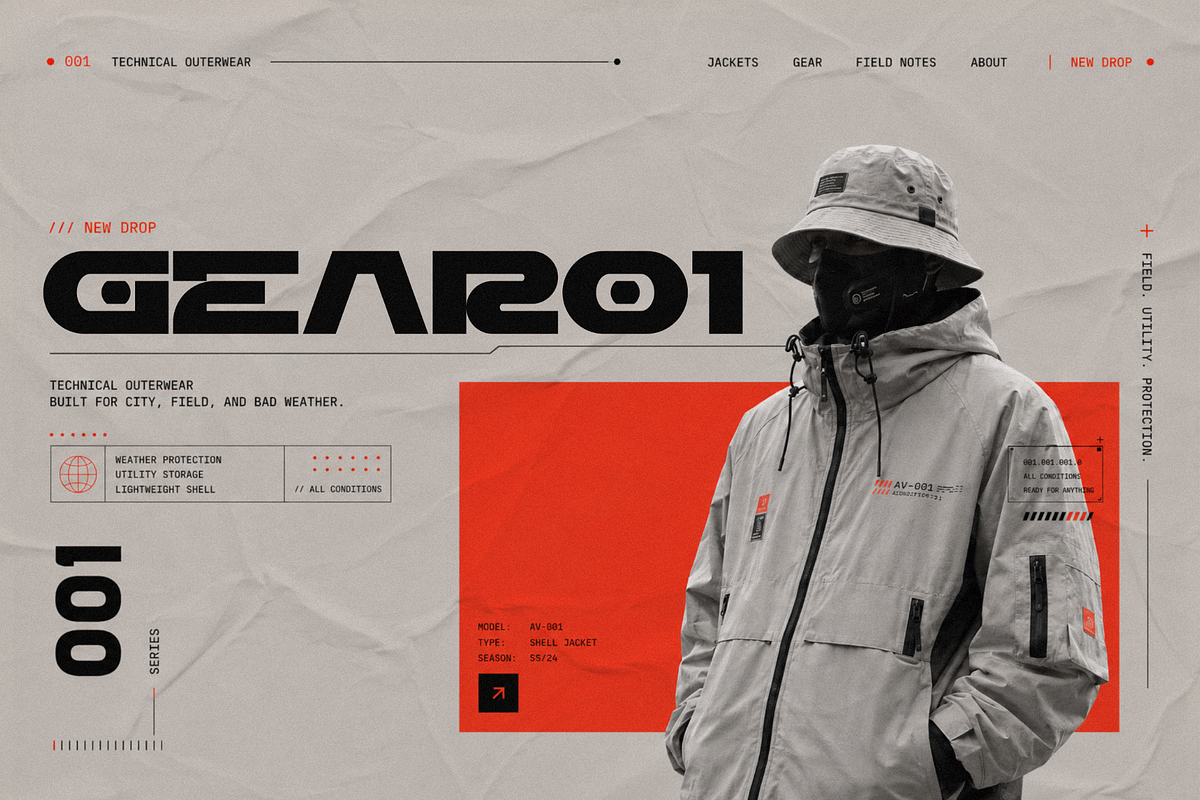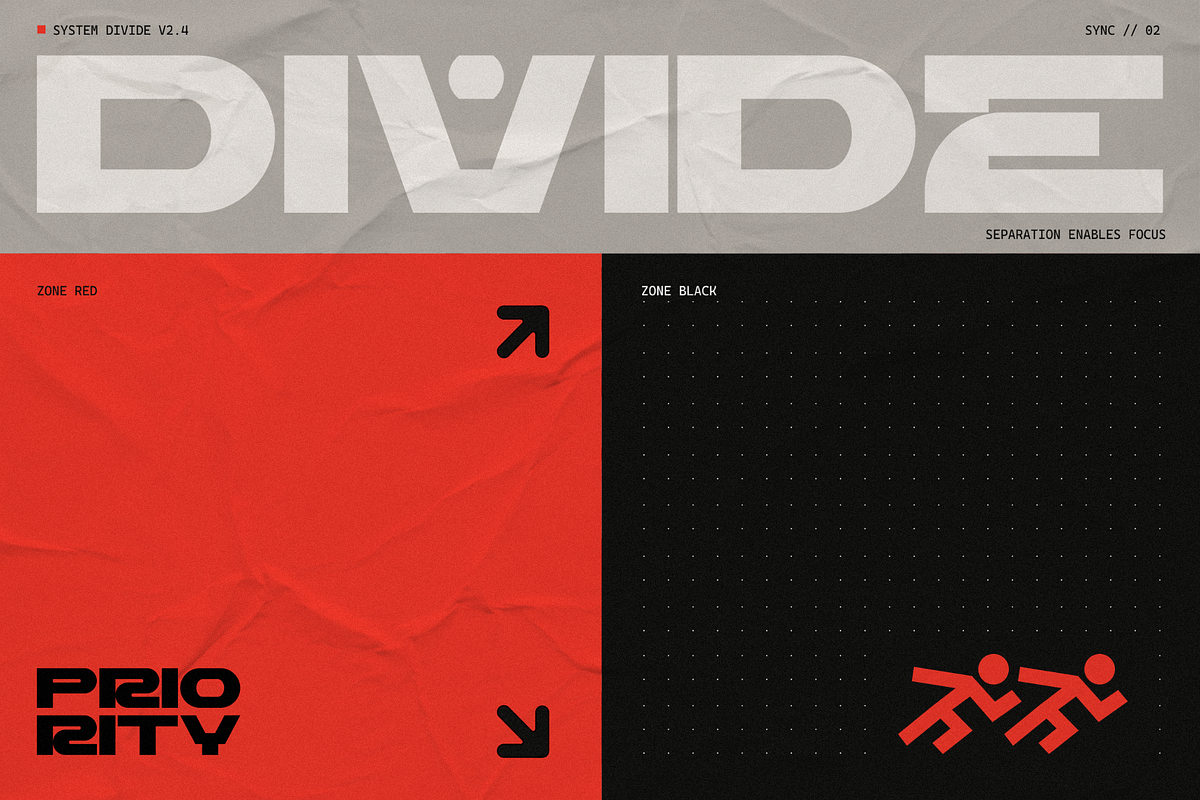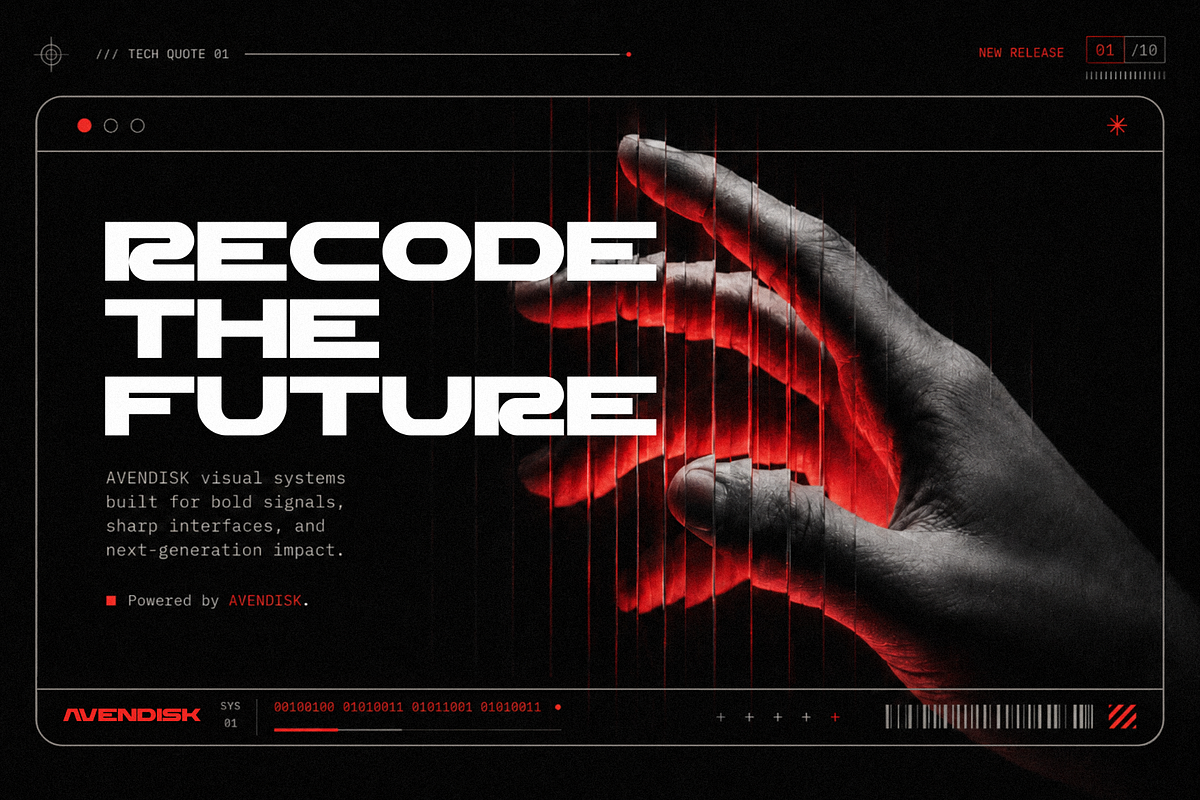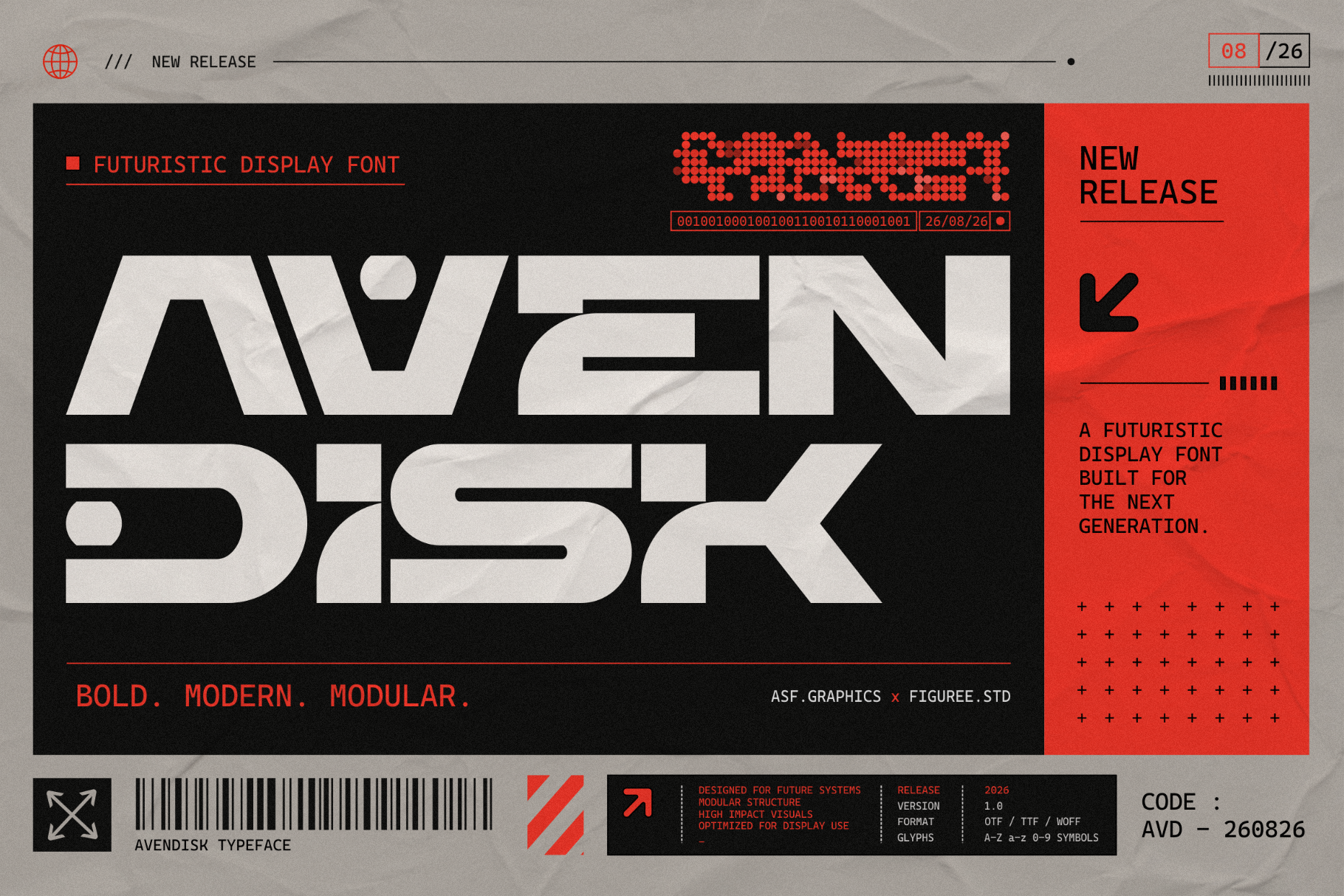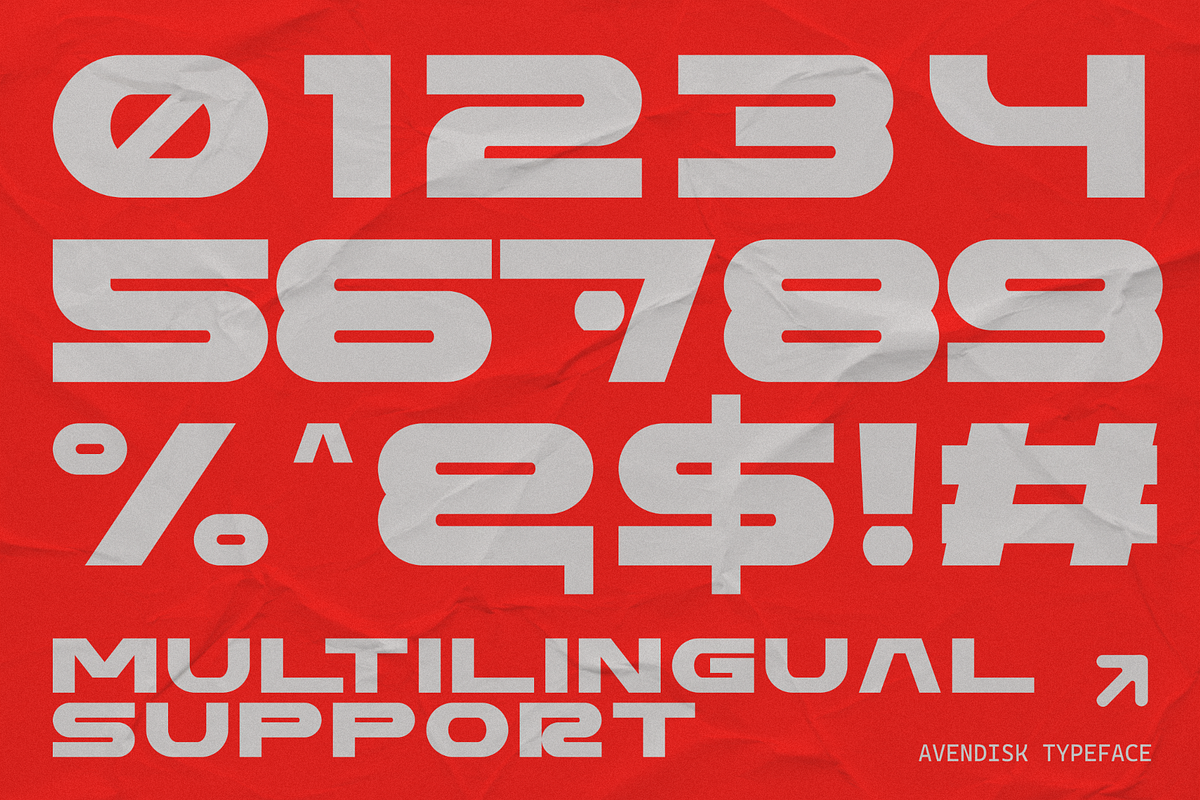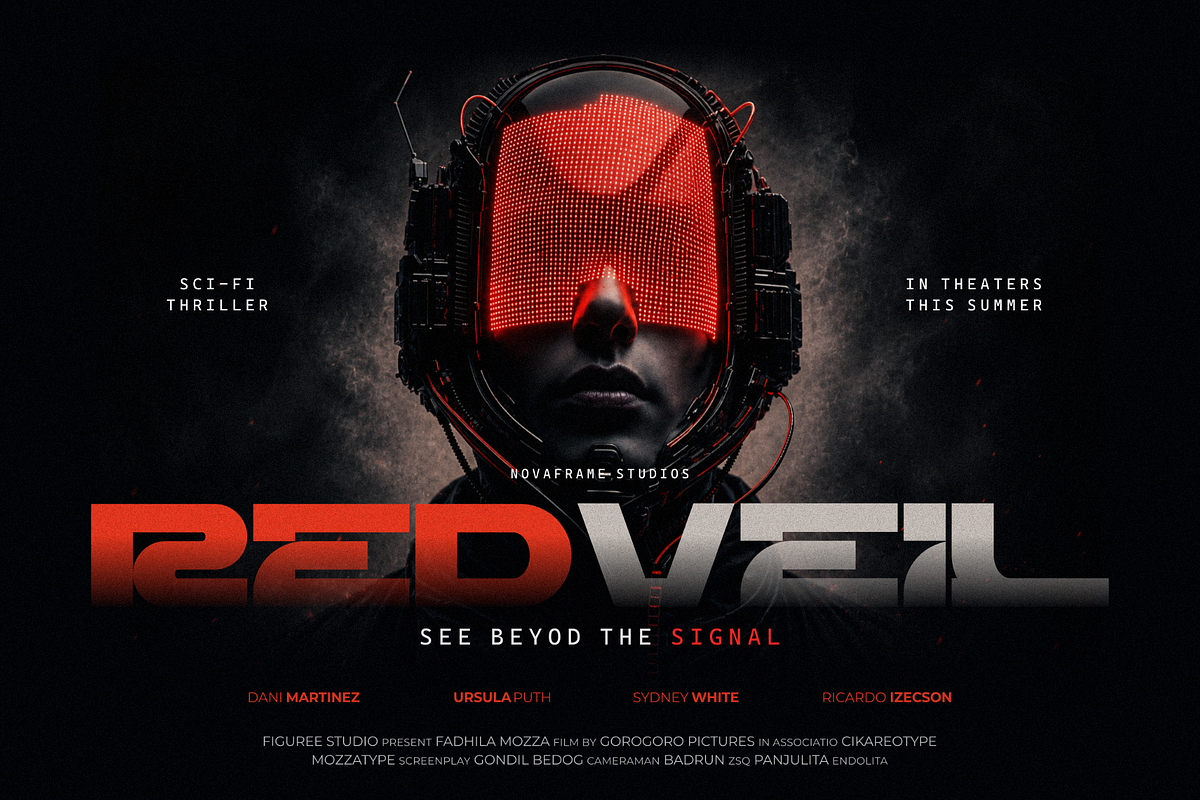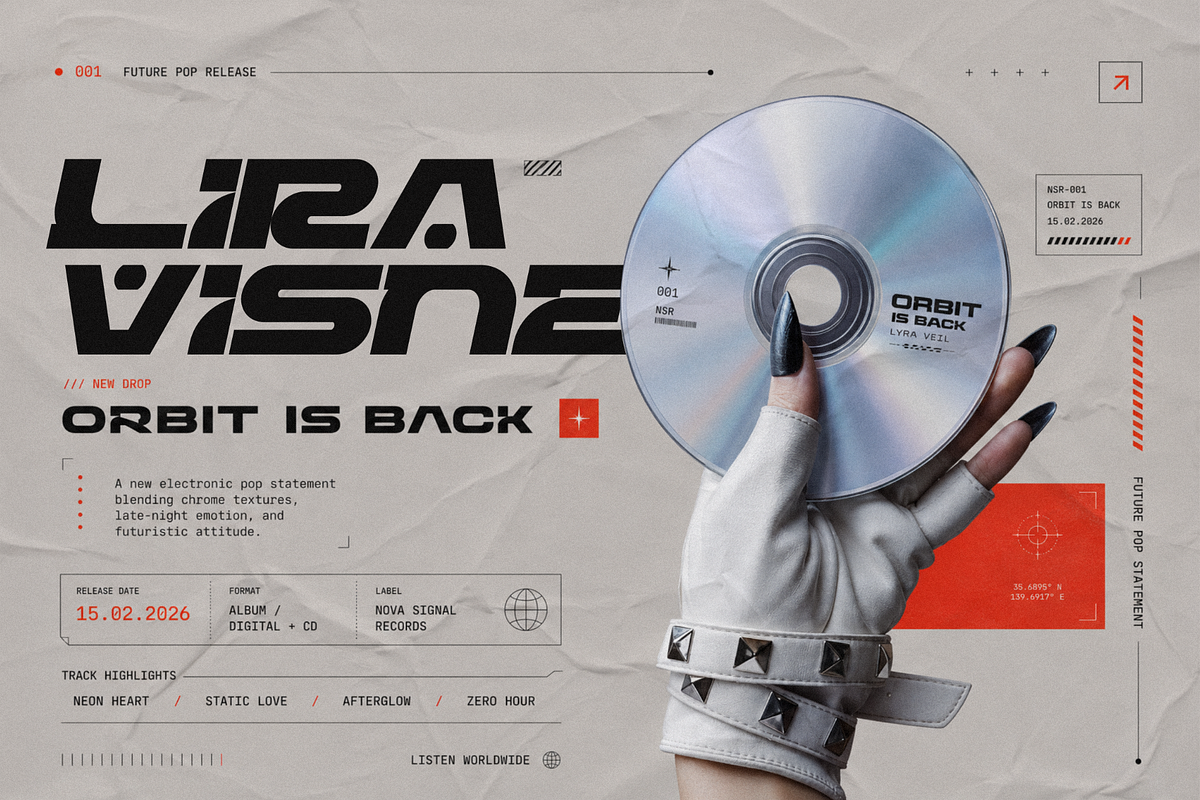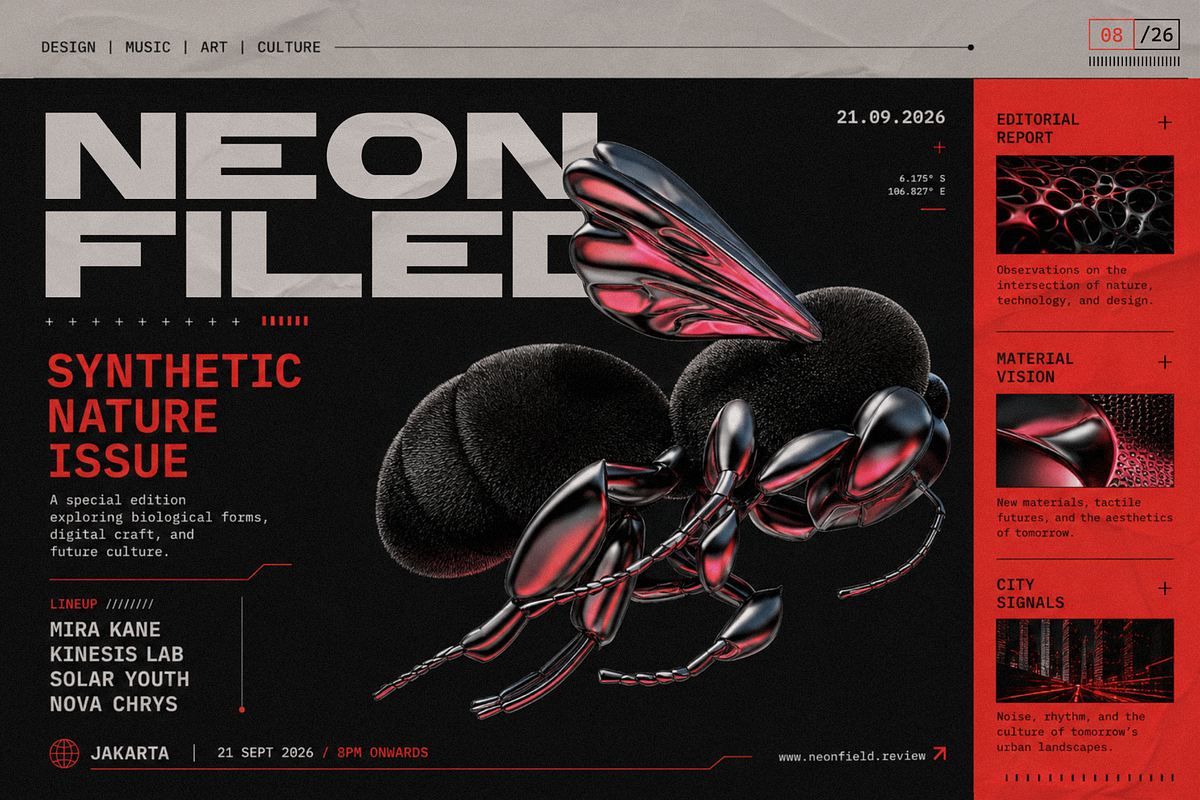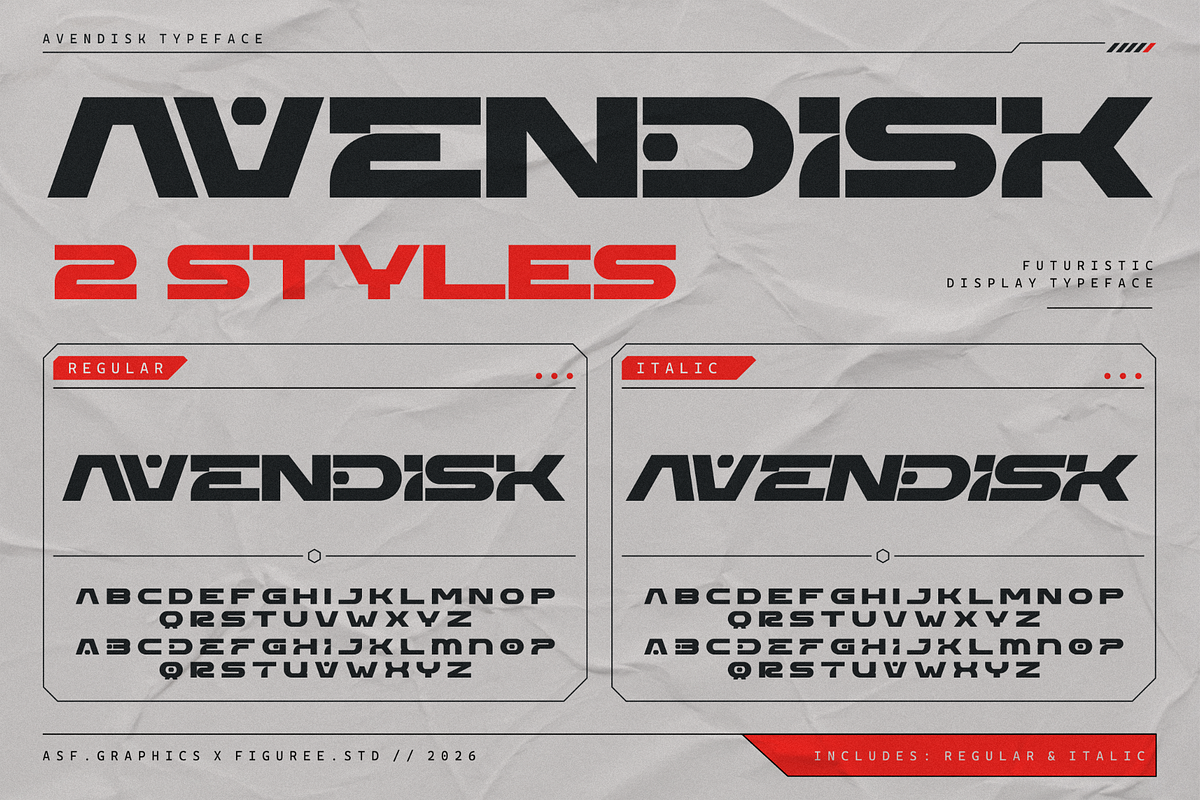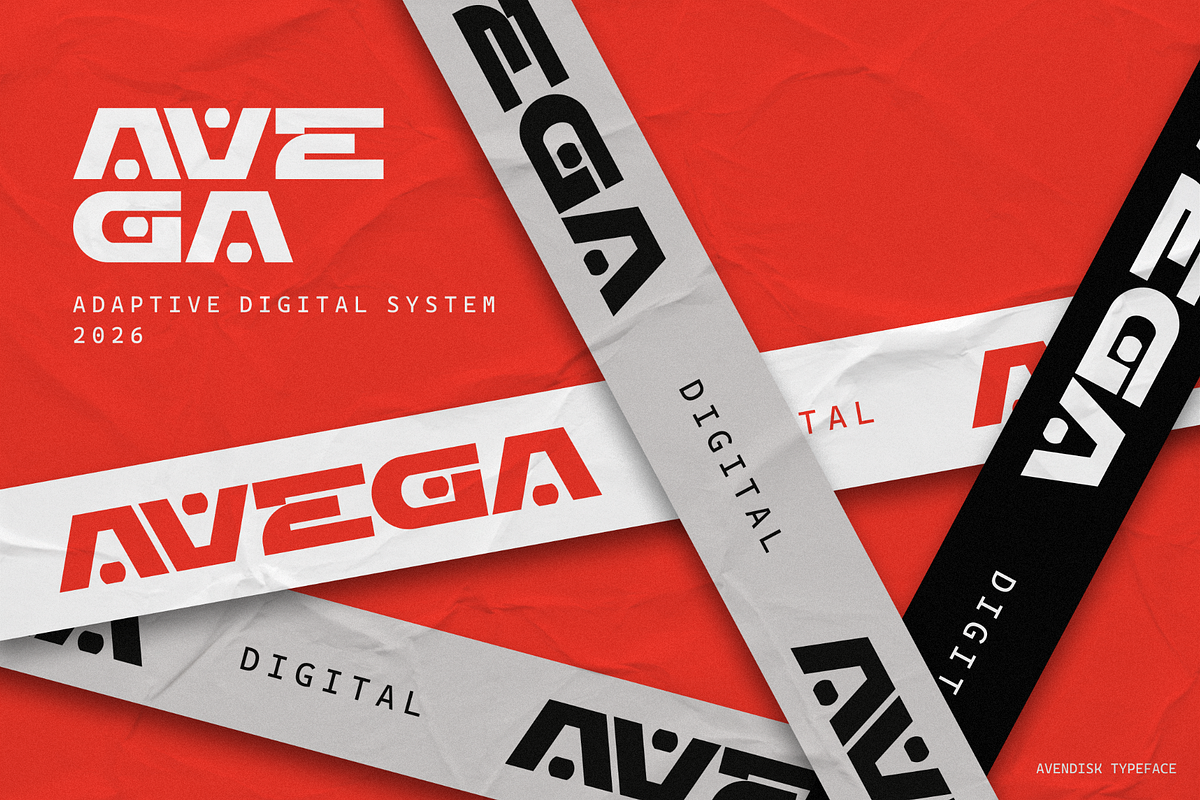
Avendisk – Bold Futuristic Font
Avendisk – Bold Futuristic Font is a strong display typeface created for designs that need a futuristic, technological, and forward-looking visual identity. Built with bold geometric letterforms and a distinctive sci-fi character, Avendisk brings an immediate sense of innovation and energy to headlines, titles, and large-scale typography.
Designed for high-impact visual communication, Avendisk works especially well for sci-fi posters, game titles, movie titles, technology graphics, esports visuals, digital campaigns, album artwork, event graphics, YouTube thumbnails, and futuristic logo designs. Its bold proportions help typography become the main visual element rather than simply supporting the composition.
The font includes both Regular and Italic styles, giving designers two different ways to control the energy of a layout. Use Avendisk Regular for solid, structured titles and commanding headlines, or switch to Avendisk Italic when a composition needs more movement, speed, and directional energy.
Complete Character Set
Avendisk includes uppercase, lowercase, numbers, punctuation, and symbols, providing the essential characters needed for a wide range of creative projects. Its multilingual support also makes the font suitable for projects that require accented characters and multiple Latin-based languages.
From short futuristic headlines to complete promotional layouts, the character set provides flexibility while maintaining a consistent visual language.
Bold futuristic display font
Regular and Italic styles
Numbers, punctuation, and symbols
Strong geometric and sci-fi-inspired letterforms
Designed for large headlines and display typography
Suitable for print, digital, and web-based creative projects
Effective for both standalone typography and graphic compositions
Why Designers Love Avendisk
Designers choose Avendisk when typography needs to establish the visual direction of a project immediately. Its bold construction creates strong hierarchy in layouts, while the futuristic shapes communicate themes such as technology, science fiction, gaming, space, innovation, speed, and digital culture.
The combination of Regular and Italic styles also makes it easier to build variation within the same visual system. Headlines can feel structured and powerful with the Regular style, while the Italic version can introduce motion into subtitles, promotional graphics, and dynamic compositions.
Avendisk is especially effective when typography needs to dominate the canvas. Use it oversized on a sci-fi poster, across a game title screen, as the centerpiece of a technology campaign, or as an assertive title for cinematic and digital artwork.
Make Your Next Project Look Ahead
When your concept calls for bold futuristic typography, Avendisk gives you the visual language to push it forward. From science-fiction posters and game graphics to technology campaigns, cinematic titles, digital artwork, and logo concepts, its distinctive letterforms turn ordinary words into commanding visual statements. Build stronger futuristic compositions and give your next project a type-driven identity that feels ready for what comes next.